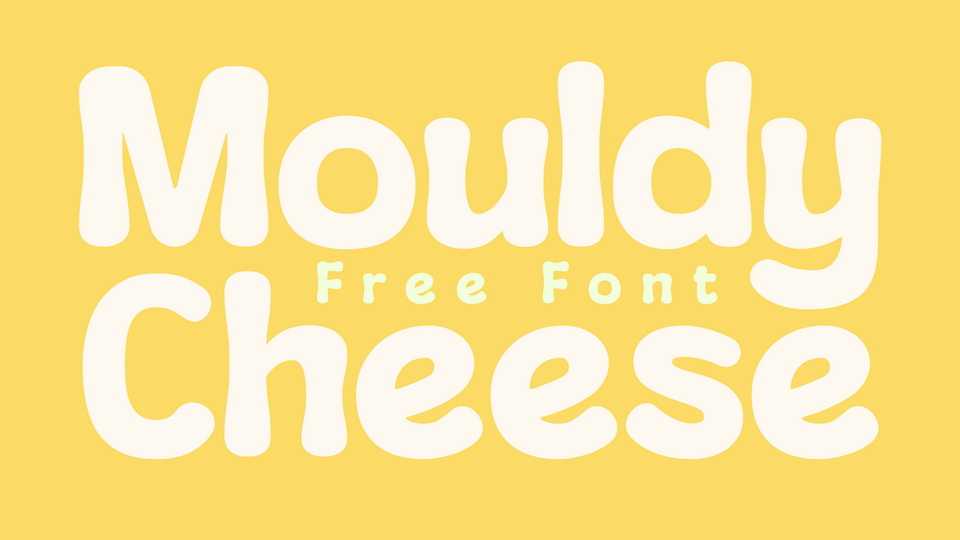
Download Mouldy Cheese font, a cool, fancy style handwriting typeface to add that special fancy touch to any design idea. Mouldy Cheese font can be used for logos, branding, invitations, stationery, wedding designs, social media posts.
Designer: Niskala Huruf